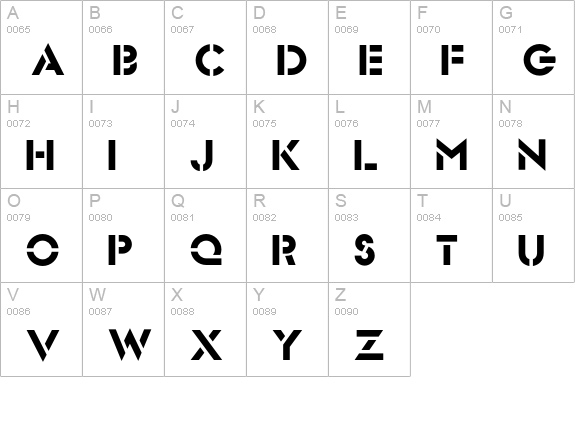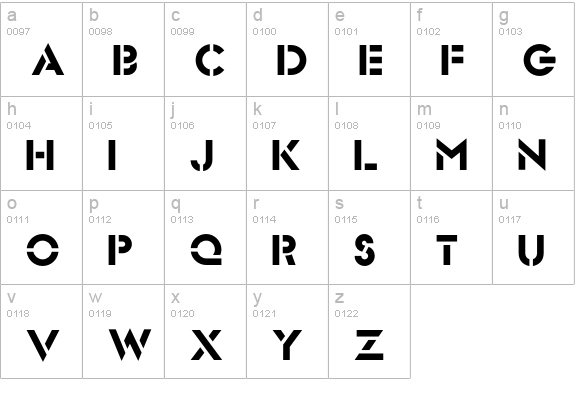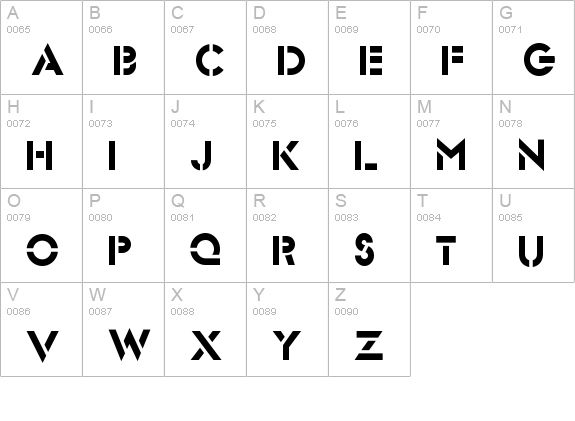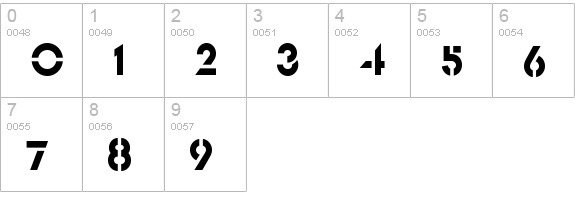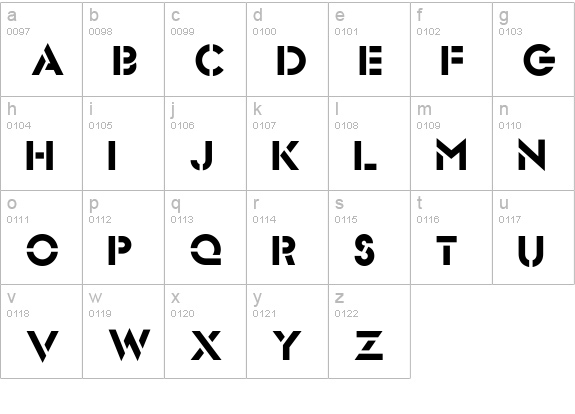
FuturaStencilICG is a modern and stylish typeface that combines the timeless elegance of the Futura font with a unique stencil design. This font is perfect for creating eye-catching headlines, bold logos, and striking posters. The clean lines and geometric shapes of FuturaStencilICG give it a contemporary and sophisticated look that stands out in any project. What makes FuturaStencilICG even more appealing is that it is available for free download at FontsMarket.com. This means you can easily access this versatile font and use it in your designs without any cost. Whether you are a graphic designer, a web developer, or a creative enthusiast, FuturaStencilICG is a valuable addition to your font collection. Download it today and elevate your projects with its modern aesthetic and bold presence.